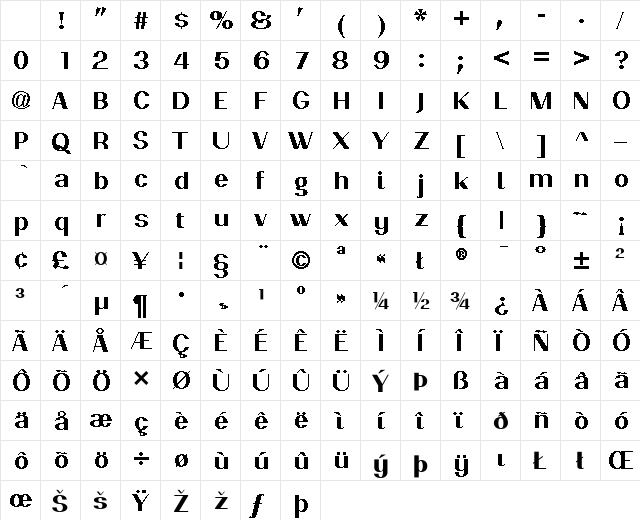
Complete PassionSansPDam Heavy glyph index. Displaying only characters natively supported by PassionSansPDam Heavy font.
PassionSansPDam is a composed and adaptable typeface that performs quietly and consistently across a wide range of design contexts.